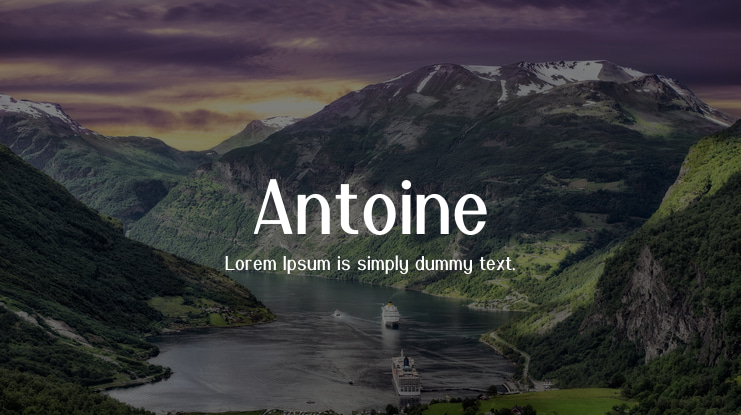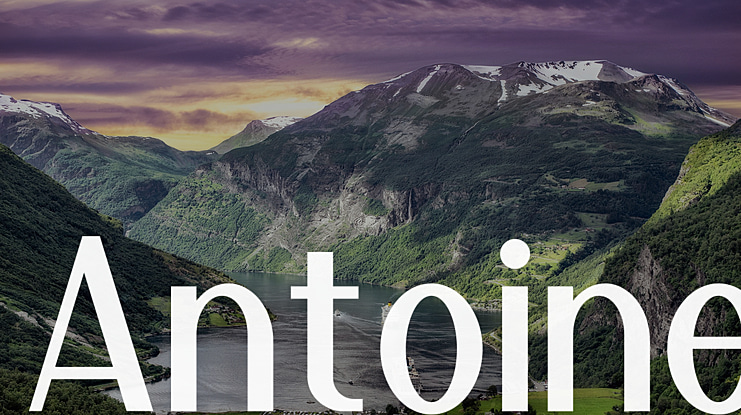
Antoine Font Family
Sugiyanto
The theme of Antoine is Classy Classic. The design was taken from the Sans-Serif family. Simple, classic, also elegant to use to make the page title or brochure. Antoine is indeed for this type of writing. The arches are designed to resemble classic buildings and the kerning has been trimmed to make Antoine suitable for a variety of other writings.Commercial license at: Graphicriver: https://graphicriver.net/item/antoine-classy-classic-sansserif/25513162Creative Fabrica: https://www.creativefabrica.com/product/neo-antoine/Thank you and best regards. SIGN Studio.